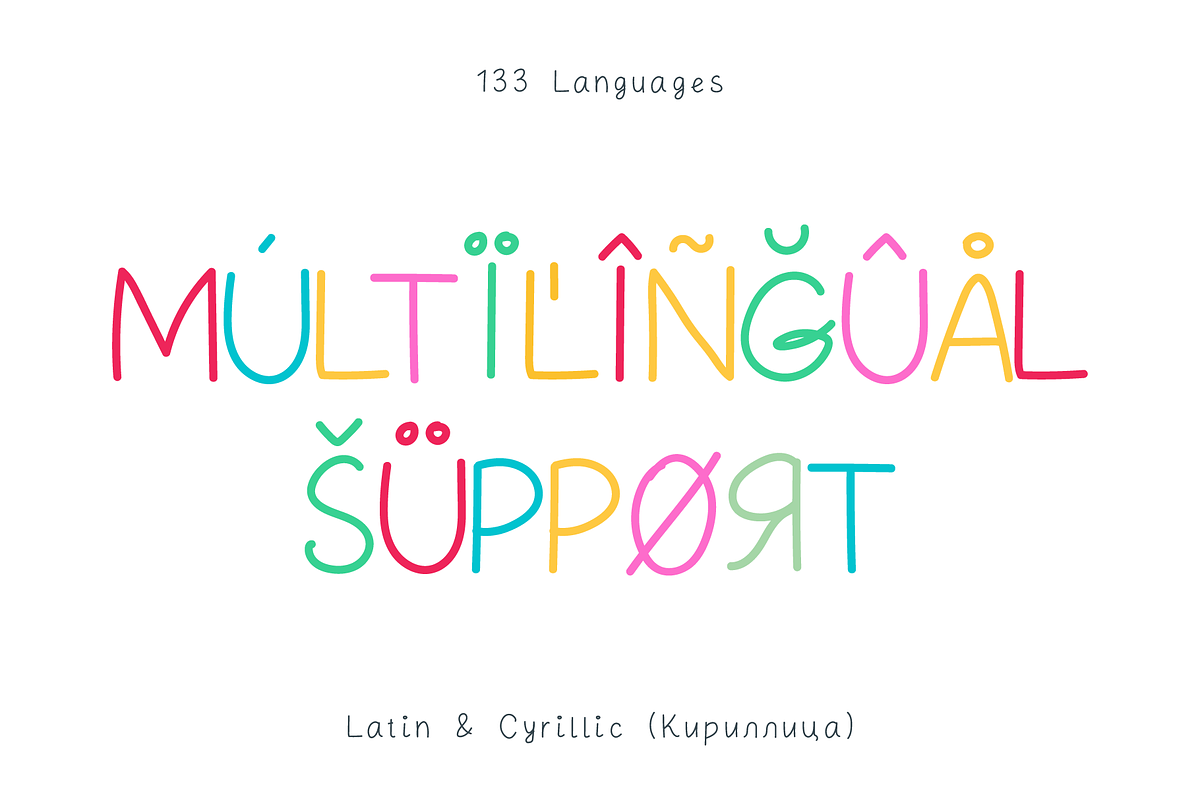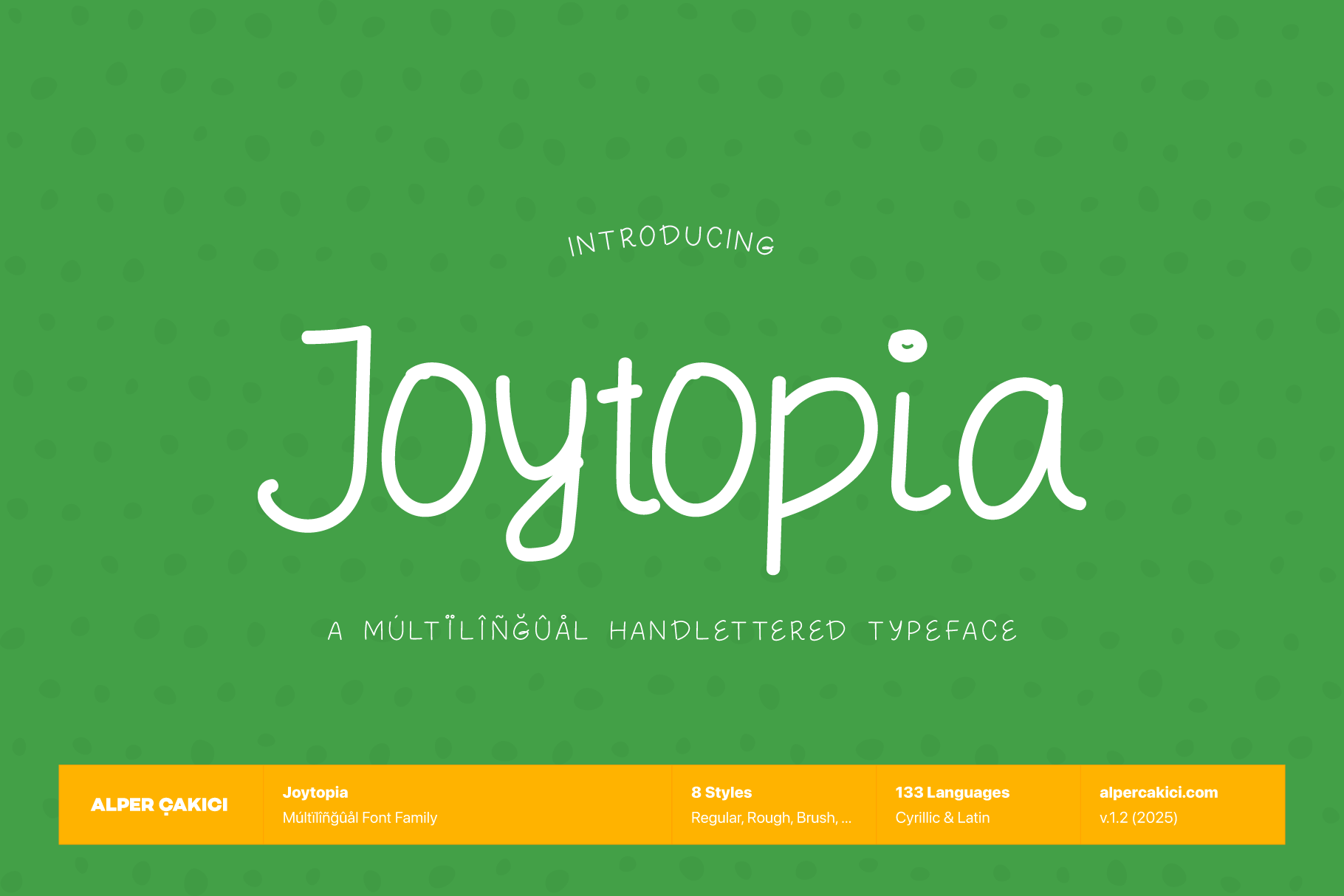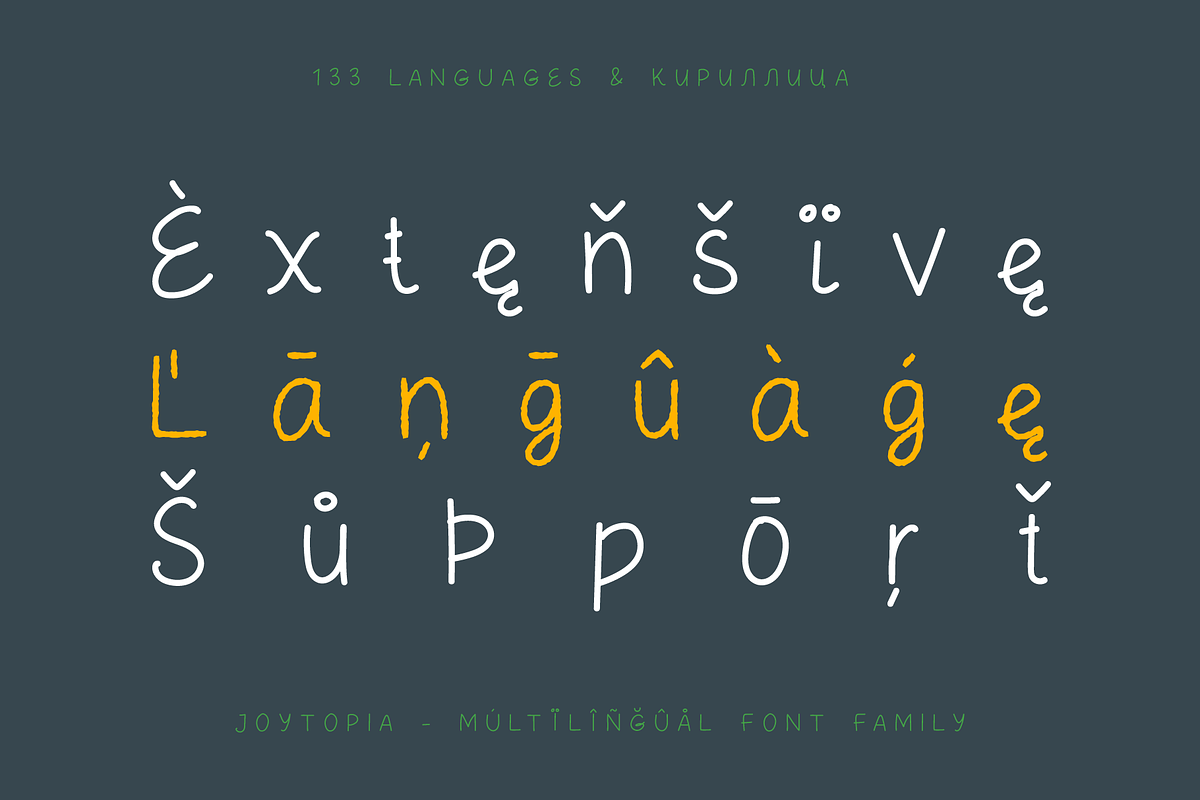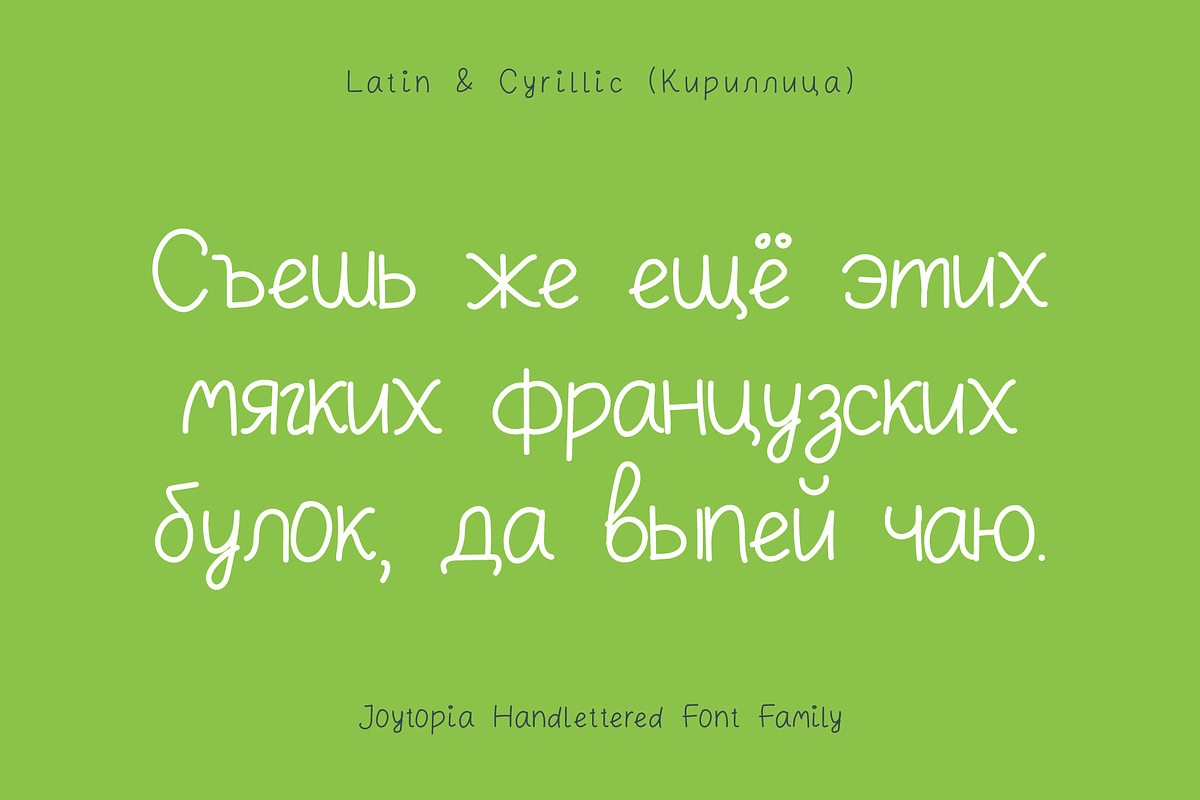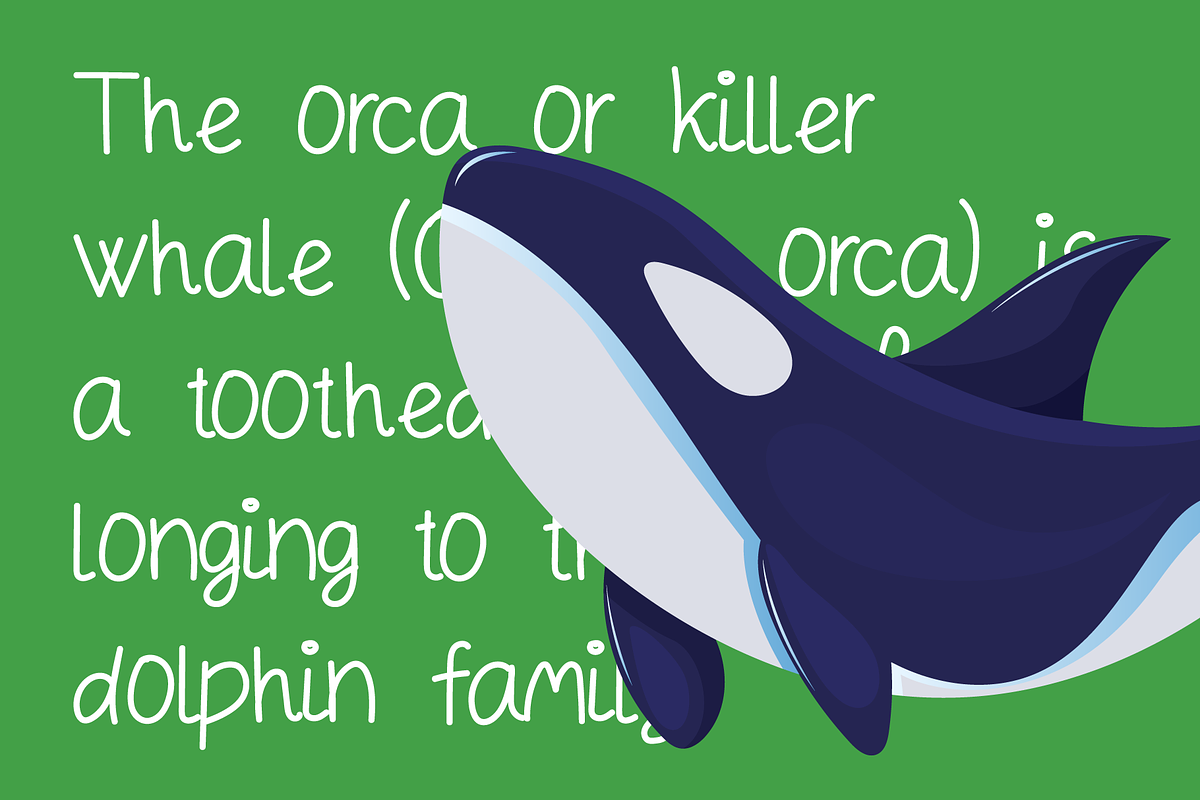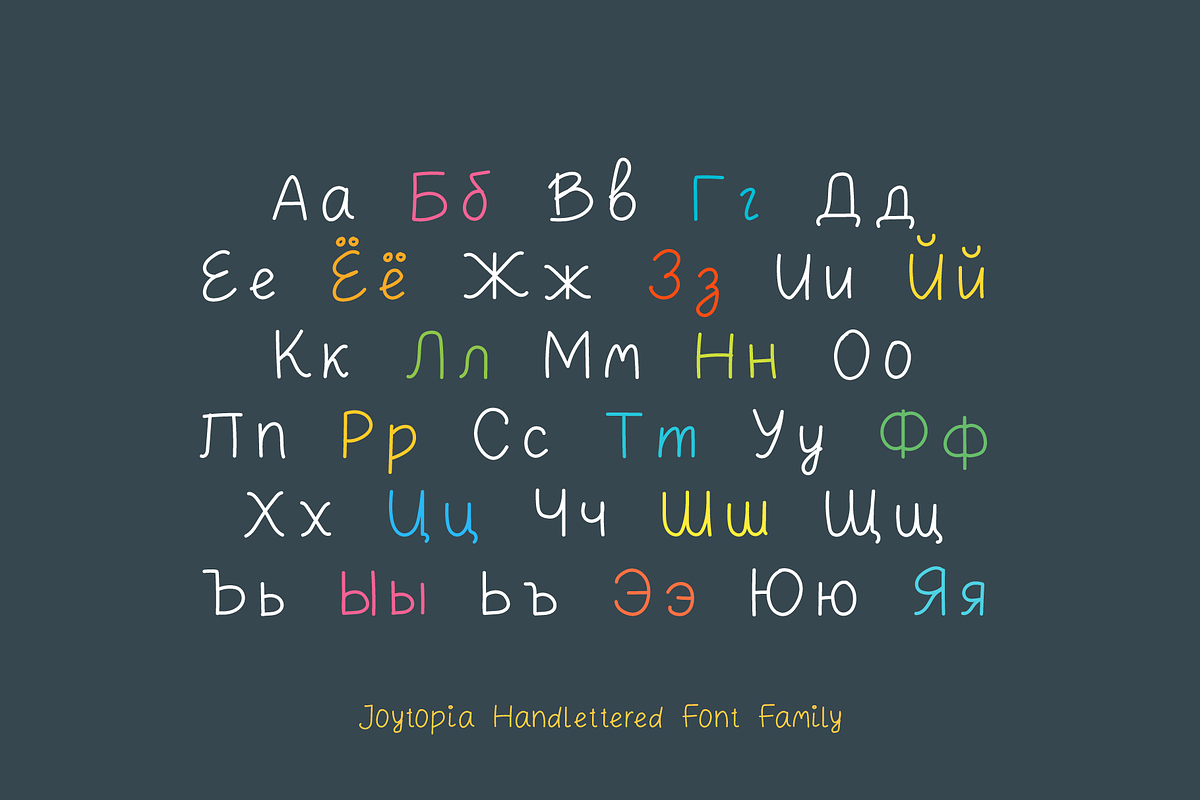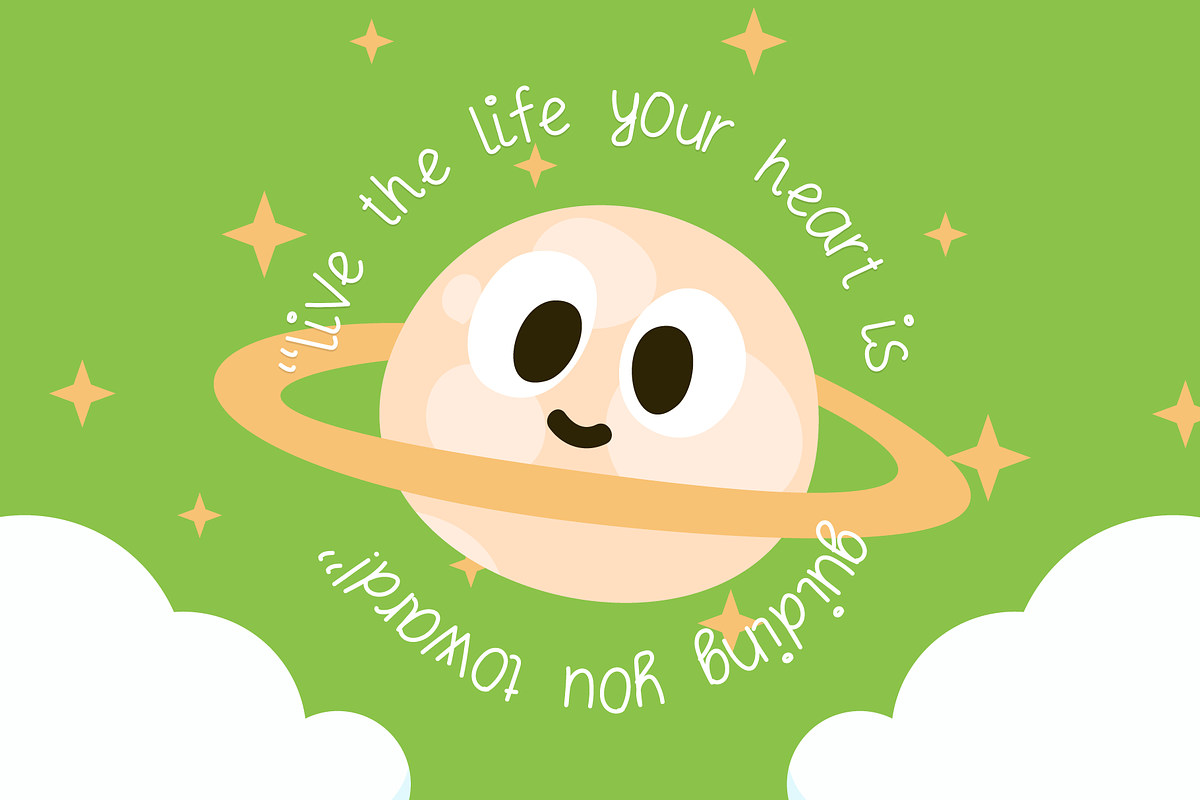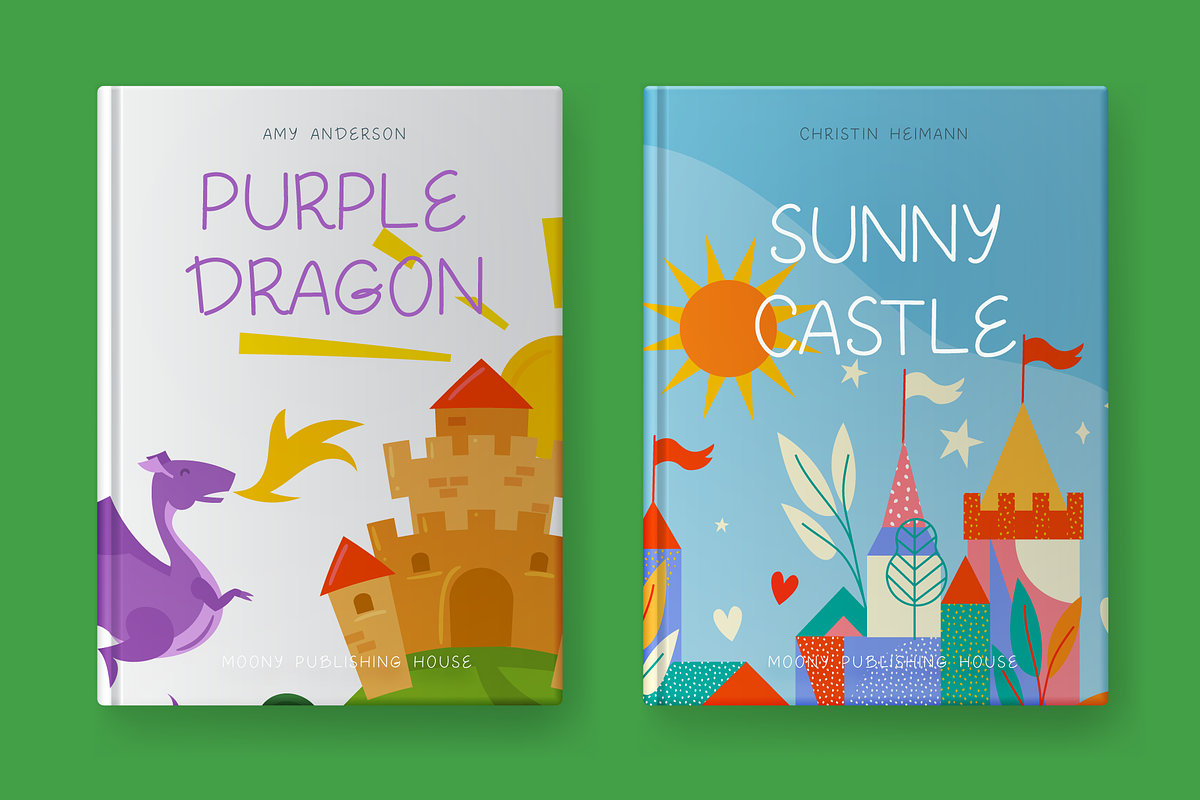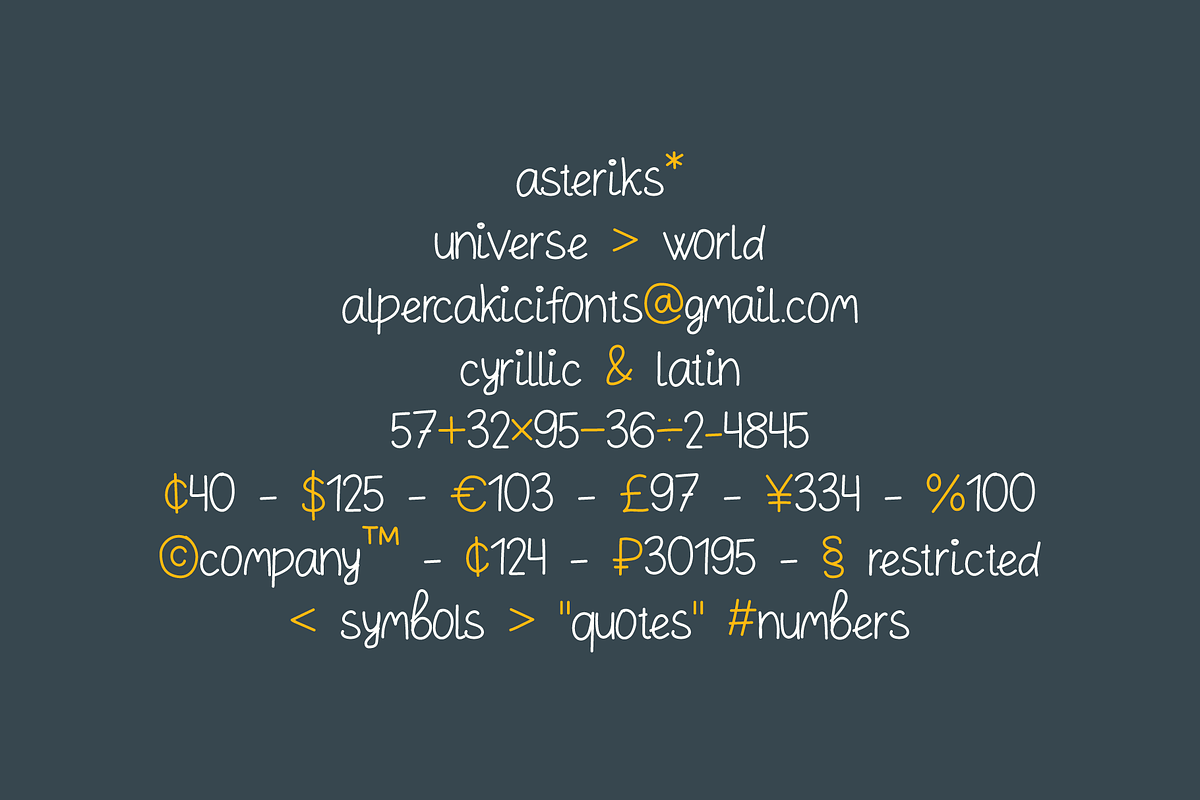
Joytopia Handwritten Typeface
Joytopia is a lively handwritten script typeface designed to celebrate warmth, creativity, and multilingual expression. Inspired by joyful human handwriting, Joytopia balances natural flow with clear structure, making it both expressive and highly usable.
Joytopia supports 133 languages, covering a wide range of Latin, African, European, and indigenous languages, making it an excellent choice for global design projects.
The family includes 8 carefully crafted styles, offering flexibility from clean and elegant to textured and expressive:.
Perfect for branding, packaging, greeting cards, posters, social media, children’s products, editorial headlines, and joyful storytelling. Joytopia brings a human touch while maintaining professional versatility.